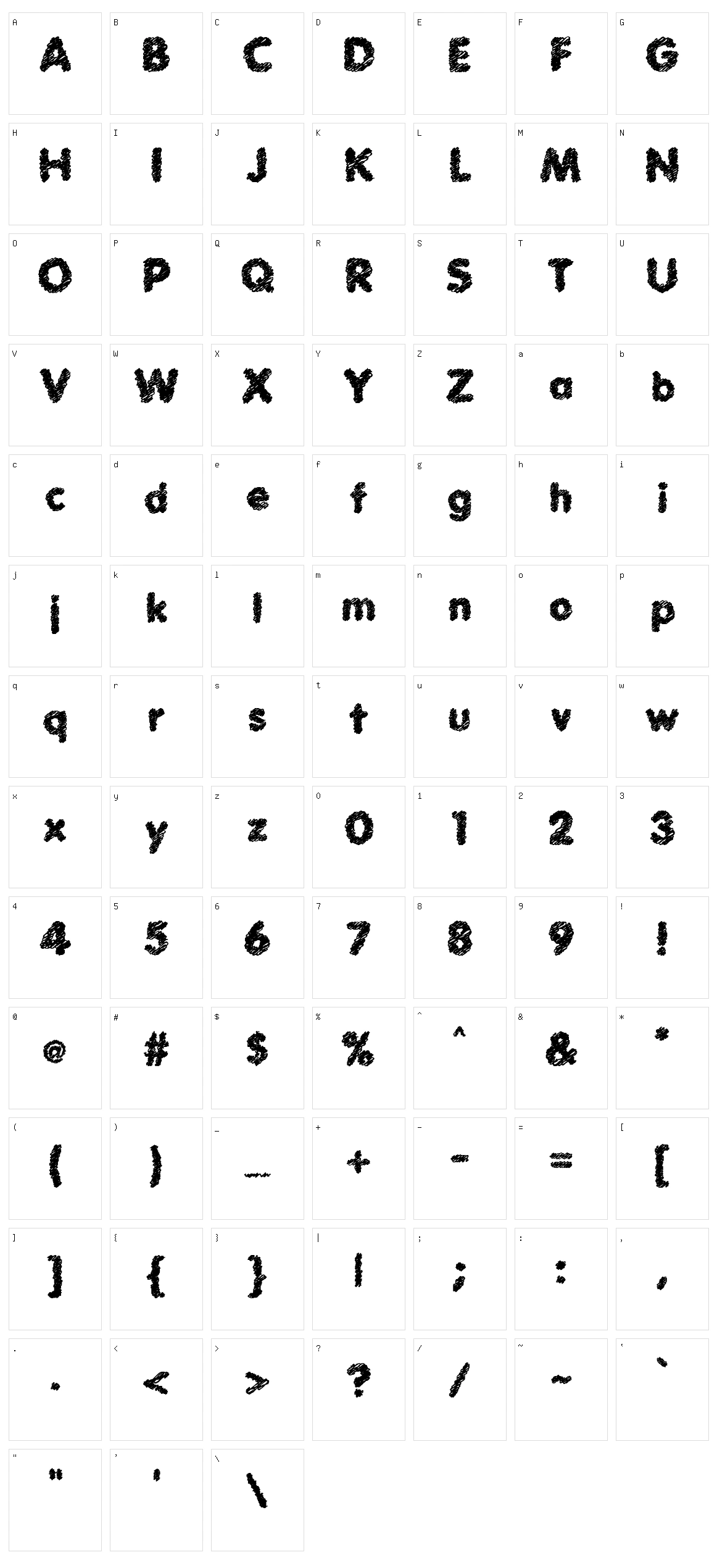
The free font Scratch Bold is carefully designed by Jos Elsendoorn, showcasing a thoughtful balance of creativity and usability and falls under the Distorted font style. When you download the ZIP file, it contains only 257.25 KB of font files, making it lightweight and quick to download. Please review the license details below to understand permitted usage and distribution rights. If license information is not available, we recommend using this font for personal projects only or contacting the author directly for commercial usage permissions.